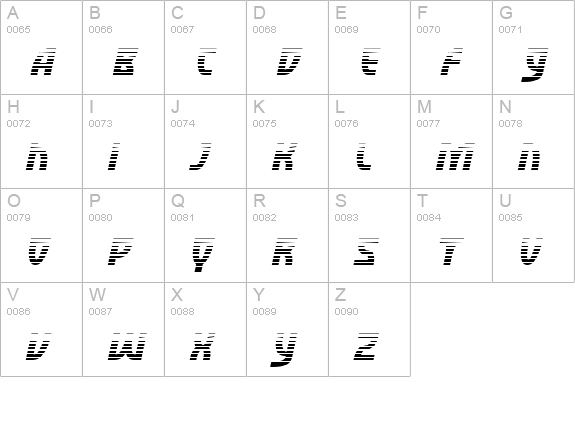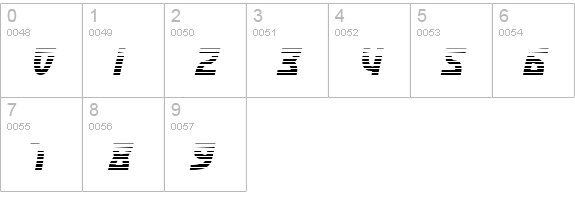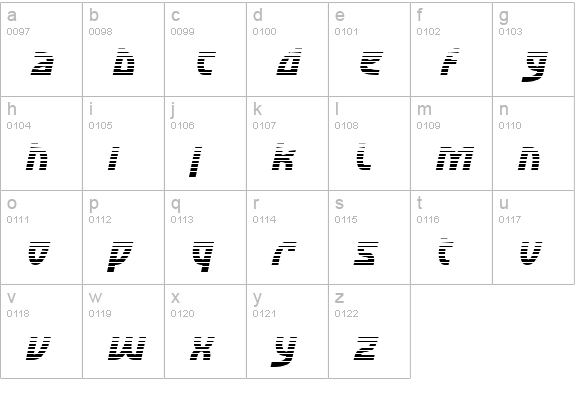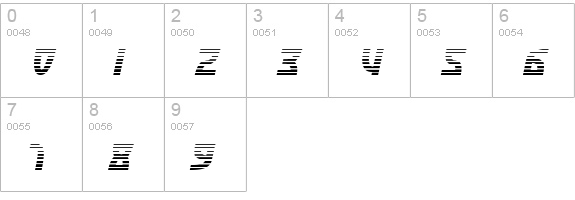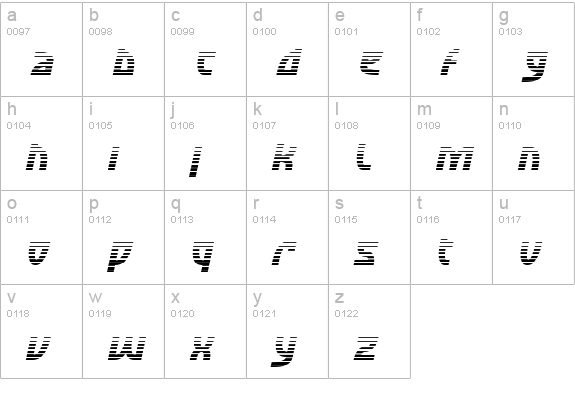
SF Retroesque FX Oblique Font Details
SF Retroesque FX Oblique is a distinctive, italic variant in the SF typeface family \xE2\x80\x94 well suited to design and typography projects.
Introducing SF Retroesque FX Oblique, a captivating font that combines the essence of retro aesthetics with a futuristic twist. This font is a perfect choice for those seeking a nostalgic and yet modern look for their designs. With its sleek and slanted letterforms, SF Retroesque FX Oblique exudes a sense of motion and energy, making it ideal for projects that require a dynamic and vibrant vibe. Its bold and sharp edges give it a distinct character, ensuring that your text will grab attention and leave a lasting impression. This font is not only visually striking but also versatile in its application. Whether you're designing a poster for a sci-fi movie, creating a logo for a gaming company, or even crafting a vintage-inspired website, SF Retroesque FX Oblique will effortlessly elevate your design to the next level. And the best part? SF Retroesque FX Oblique is available for free download at FontsMarket.com. Yes, that's right - you can enjoy the full potential of this remarkable font without spending a dime. So why wait? Embark on your creative journey today and harness the power of SF Retroesque FX Oblique to make your designs truly stand out.